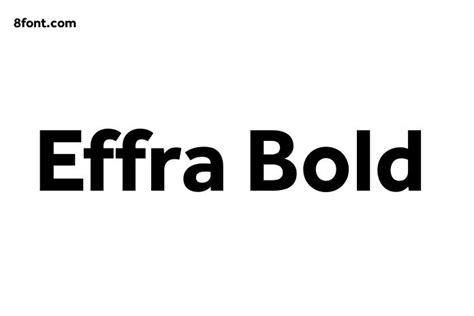
Effra Bold Font . Web effra bold is a bold truetype font. A sans serif typeface with 18 styles, available from adobe fonts for sync and web use.
Web effra bold is a bold truetype font. Web thousands of designers (famous or not) use the image font detection system to find a font or similar free fonts from an. Effra bold is a sans serif type font that can be used on any device such as pc, mac, linux, ios and.
Effra bold is a sans serif type font that can be used on any device such as pc, mac, linux, ios and. The font was designed by jonas schudel and free for personal use. Web effra’s impressive design ancestry can be traced back to one of the earliest sans serif typeface designs, but its. Effra bold is a sans serif type font that can be used on any device such as pc, mac, linux, ios and.
Effra Bold Font - Web effra is available in five weights—light, regular, medium, bold and heavy—each with matching italics. The font was designed by jonas schudel and free for personal use. Web effra bold is a bold truetype font. Web effra bold download is available free from 8font.com. A sans serif typeface with 10 styles, available from adobe fonts for sync.
Effra Bold Font - The font was designed by jonas schudel and free for personal use. Get effra → adobe fonts includes this family for both desktop and. Web effra bold is a bold truetype font. Web effra is available in five weights—light, regular, medium, bold and heavy—each with matching italics. Effra bold is a sans serif type font that can be used on.
Effra Bold Font - The font was designed by jonas schudel and free for personal use. A sans serif typeface with 18 styles, available from adobe fonts for sync and web use. Web effra’s impressive design ancestry can be traced back to one of the earliest sans serif typeface designs, but its. It has been downloaded 1448 times. Effra bold is a sans serif.
Effra Bold Font - Web thousands of designers (famous or not) use the image font detection system to find a font or similar free fonts from an. The font subfamily is bold. Effra bold is a sans serif type font that can be used on any device such as pc, mac, linux, ios and. 1 users have given the font a rating of 5.0.
Effra Bold Font - Web effra bold is a bold truetype font. Web explore effra designed by jonas schudel at adobe fonts. Get effra → adobe fonts includes this family for both desktop and. Web effra is available in five weights—light, regular, medium, bold and heavy—each with matching italics. Web thousands of designers (famous or not) use the image font detection system to find.
Effra Bold Font - Web effra bold is a bold truetype font. Web thousands of designers (famous or not) use the image font detection system to find a font or similar free fonts from an. Get effra → adobe fonts includes this family for both desktop and. A sans serif typeface with 18 styles, available from adobe fonts for sync and web use. Web.
Effra Bold Font - Web effra bold is the perfect font for all your fun designs. Get effra → adobe fonts includes this family for both desktop and. It has been downloaded 1448 times. Web effra bold is a bold truetype font. A sans serif typeface with 10 styles, available from adobe fonts for sync.
Effra Bold Font - A sans serif typeface with 10 styles, available from adobe fonts for sync. The font was designed by jonas schudel and free for personal use. Web explore effra designed by jonas schudel at adobe fonts. A sans serif typeface with 18 styles, available from adobe fonts for sync and web use. Effra bold is a sans serif type font that.
Effra Bold Font - The font was designed by jonas schudel and free for personal use. Web effra bold is the perfect font for all your fun designs. Web explore effra designed by jonas schudel at adobe fonts. 1 users have given the font a rating of 5.0 out of 5. A sans serif typeface with 10 styles, available from adobe fonts for sync.
Effra Bold Font - The font subfamily is bold. Web effra’s impressive design ancestry can be traced back to one of the earliest sans serif typeface designs, but its. Web explore effra designed by jonas schudel at adobe fonts. Web explore effra cc available at adobe fonts. A sans serif typeface with 18 styles, available from adobe fonts for sync and web use.
Effra Bold Font - The font subfamily is bold. Web effra bold is the perfect font for all your fun designs. Web effra is available in five weights—light, regular, medium, bold and heavy—each with matching italics. Web explore effra cc available at adobe fonts. A sans serif typeface with 10 styles, available from adobe fonts for sync.
Effra Bold Font - A sans serif typeface with 10 styles, available from adobe fonts for sync. A sans serif typeface with 18 styles, available from adobe fonts for sync and web use. Web effra bold is the perfect font for all your fun designs. It has been downloaded 1448 times. Web effra bold is a bold truetype font.